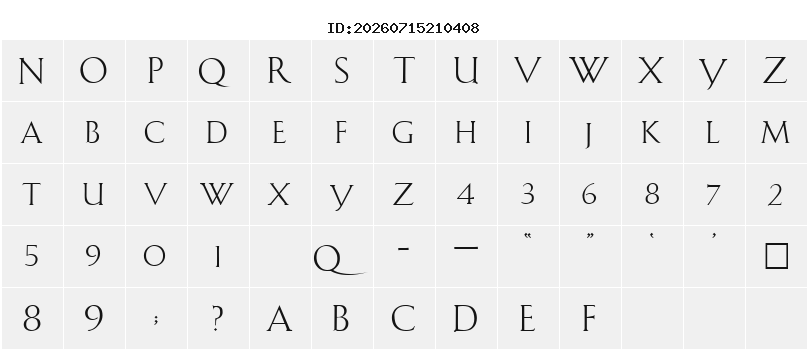
䅵䉡略牔數瑉湩瑩慬? Preview
䅵䉡略牔數瑉湩瑩慬?.ttf is a modern, elegant sans-serif font designed for ultimate readability and visual harmony. Perfect for branding, headlines, web design, and print materials.